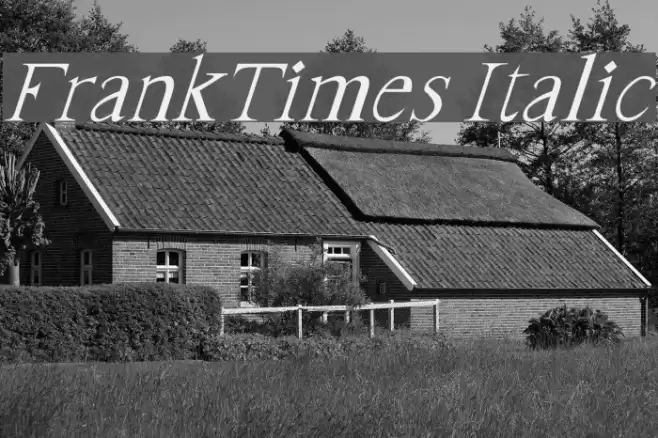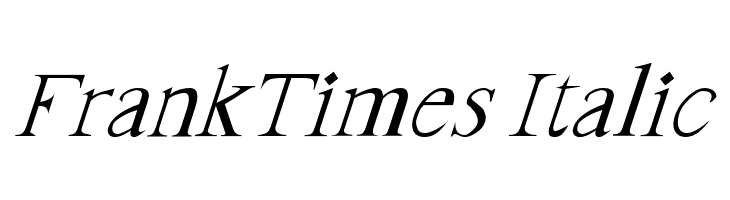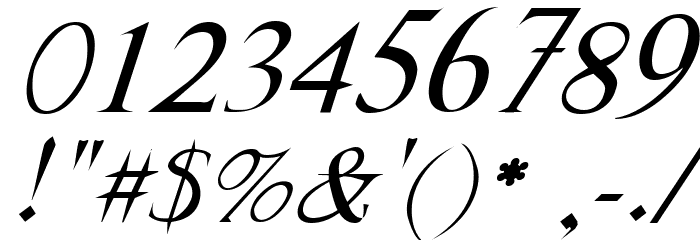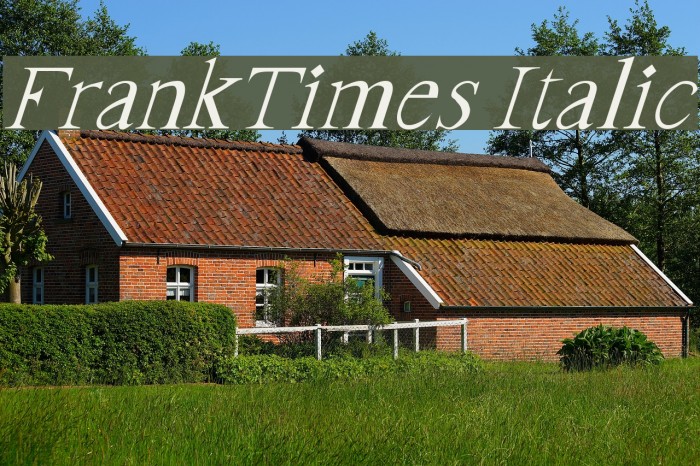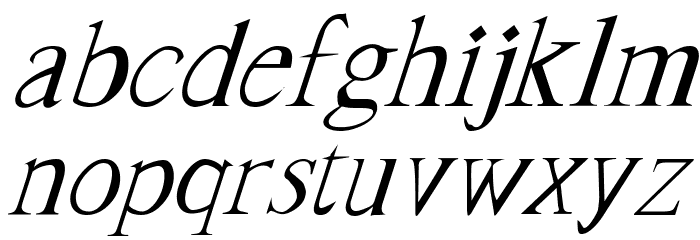
FrankTimes Italic
This font exhibits a classic and elegant style with a distinct italic slant, giving it a sophisticated and refined appearance. The characters are well-proportioned, with a slight emphasis on the curves, which adds a touch of fluidity and grace. The serifs are pronounced yet not overpowering, providing a balanced look that enhances readability. The numerals are consistent with the overall style, maintaining the same elegant curves and serifs. Special characters are designed with the same attention to detail, ensuring a cohesive appearance across all glyphs. This font is suitable for projects that require a touch of class and tradition.
A classic italic serif font with elegant curves and pronounced serifs.
- Proposed Projects: Ideal for formal invitations, elegant branding, book covers, and editorial design.
- Category: Serif
- Overall Style: Classic